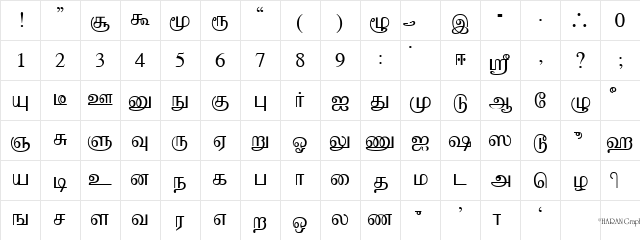
Bamini Regular Font Preview
Bamini Regular
Design Context for Bamini Typeface
Bamini offers clean, dependable letterforms without strong stylistic allegiance, making it a practical choice for designers who need flexibility.